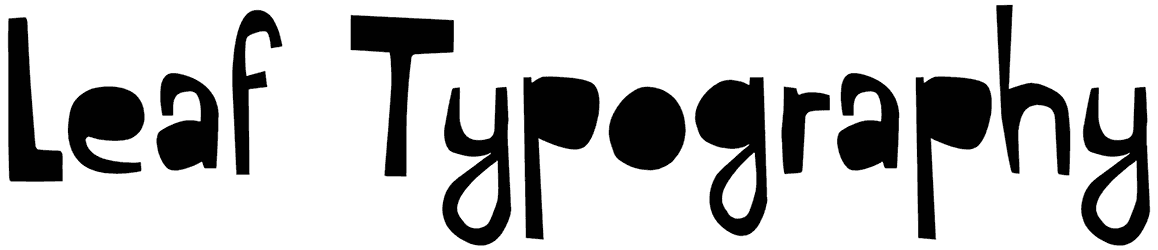
Leaf Typography Font
Designed byEmilie Thieuleux
Let’s take a look at this unique item with a playful and whimsical painted style that can make your design appealing. As a cartoon font, Leaf Typography represents artistic hand-drawn letters and a dreamy vibe. This fancy font is able to match a lot of creative projects, for example, posters, illustrations, game graphics, apparel, and so forth.